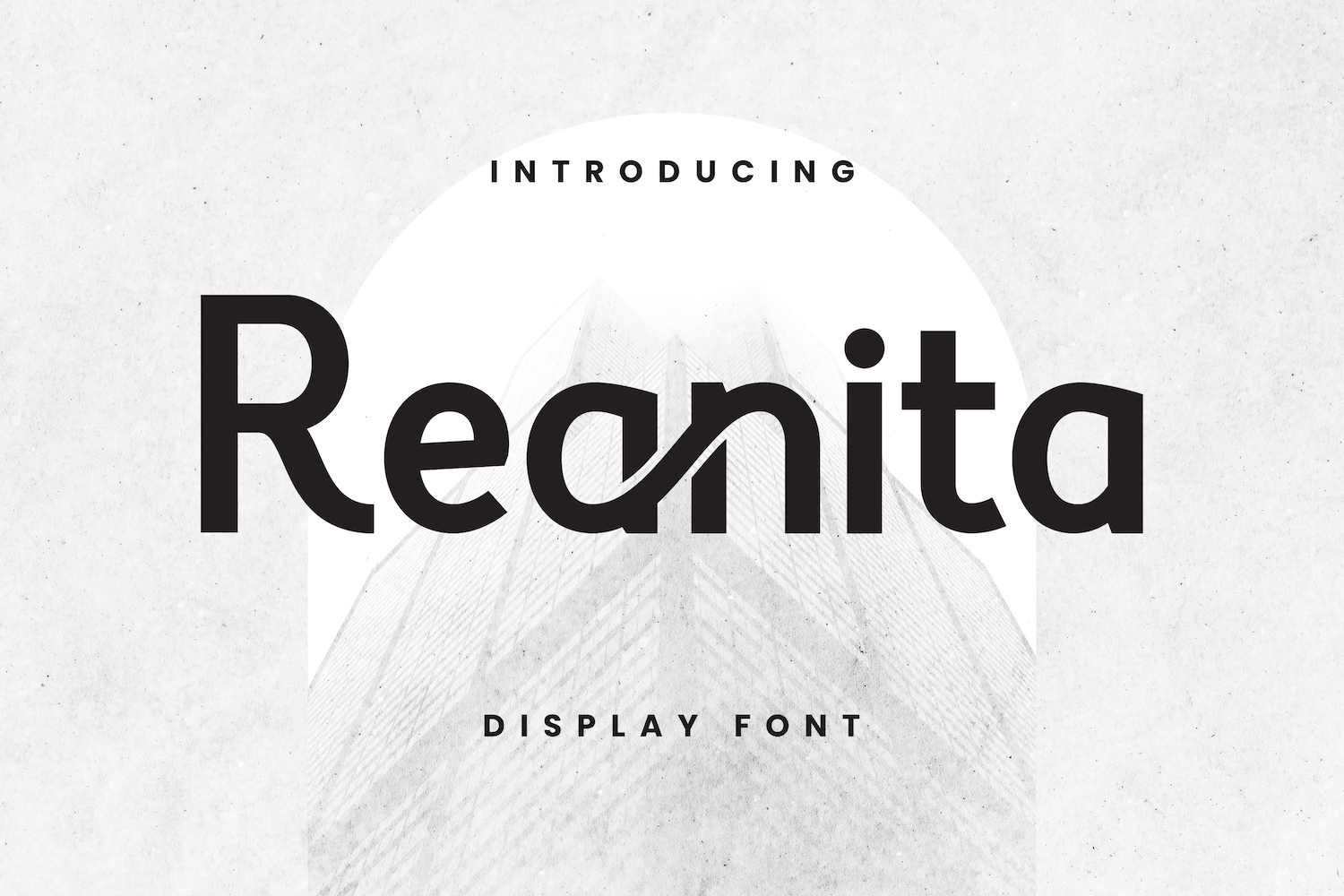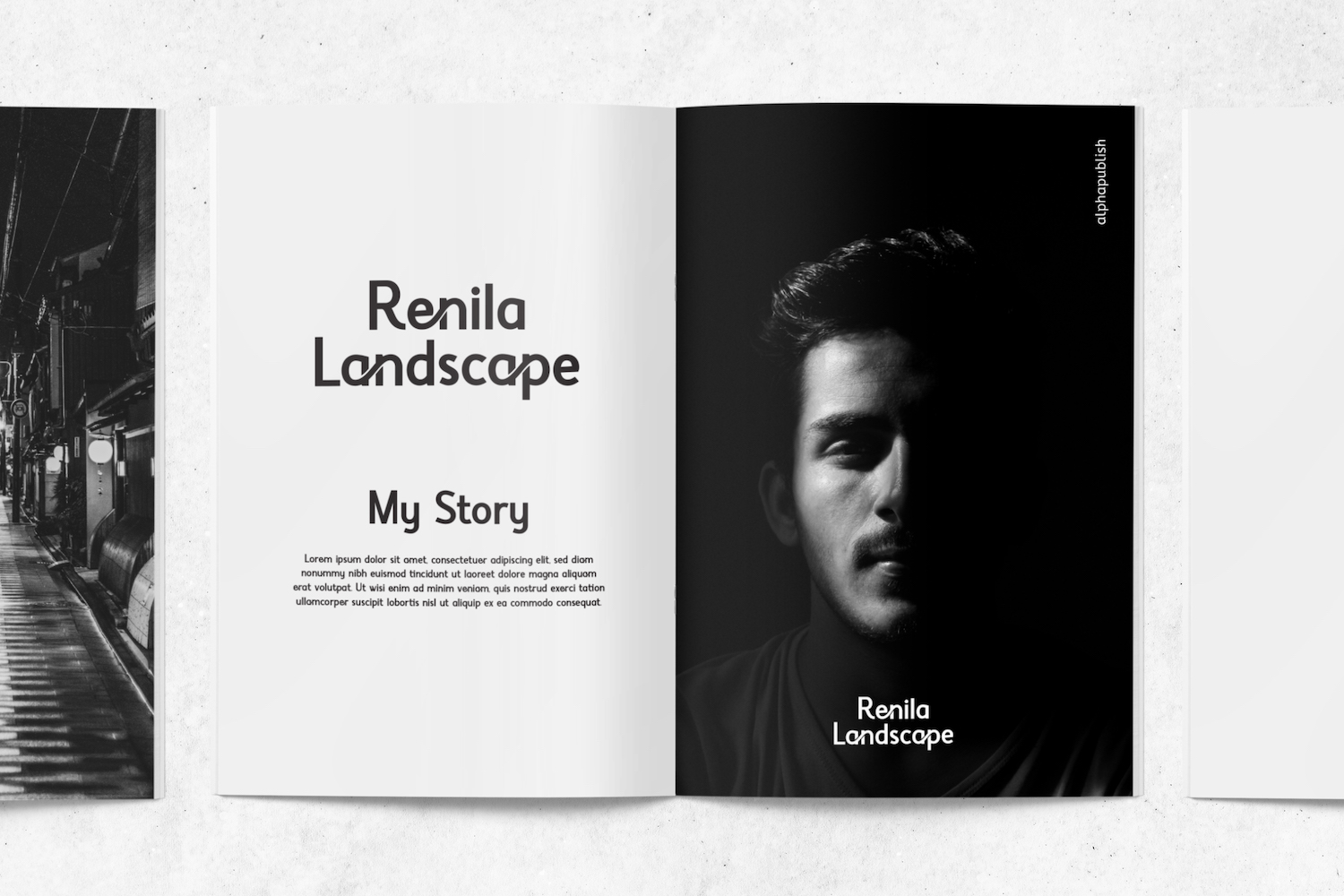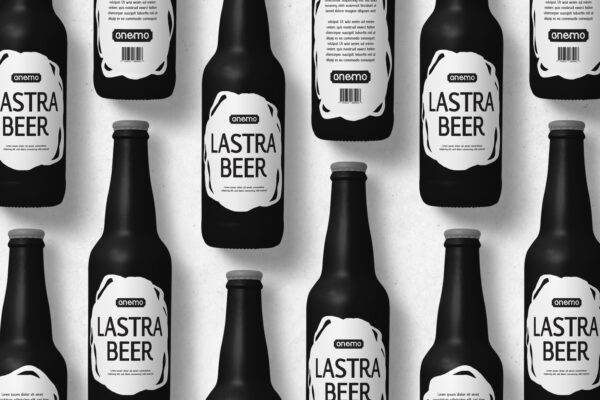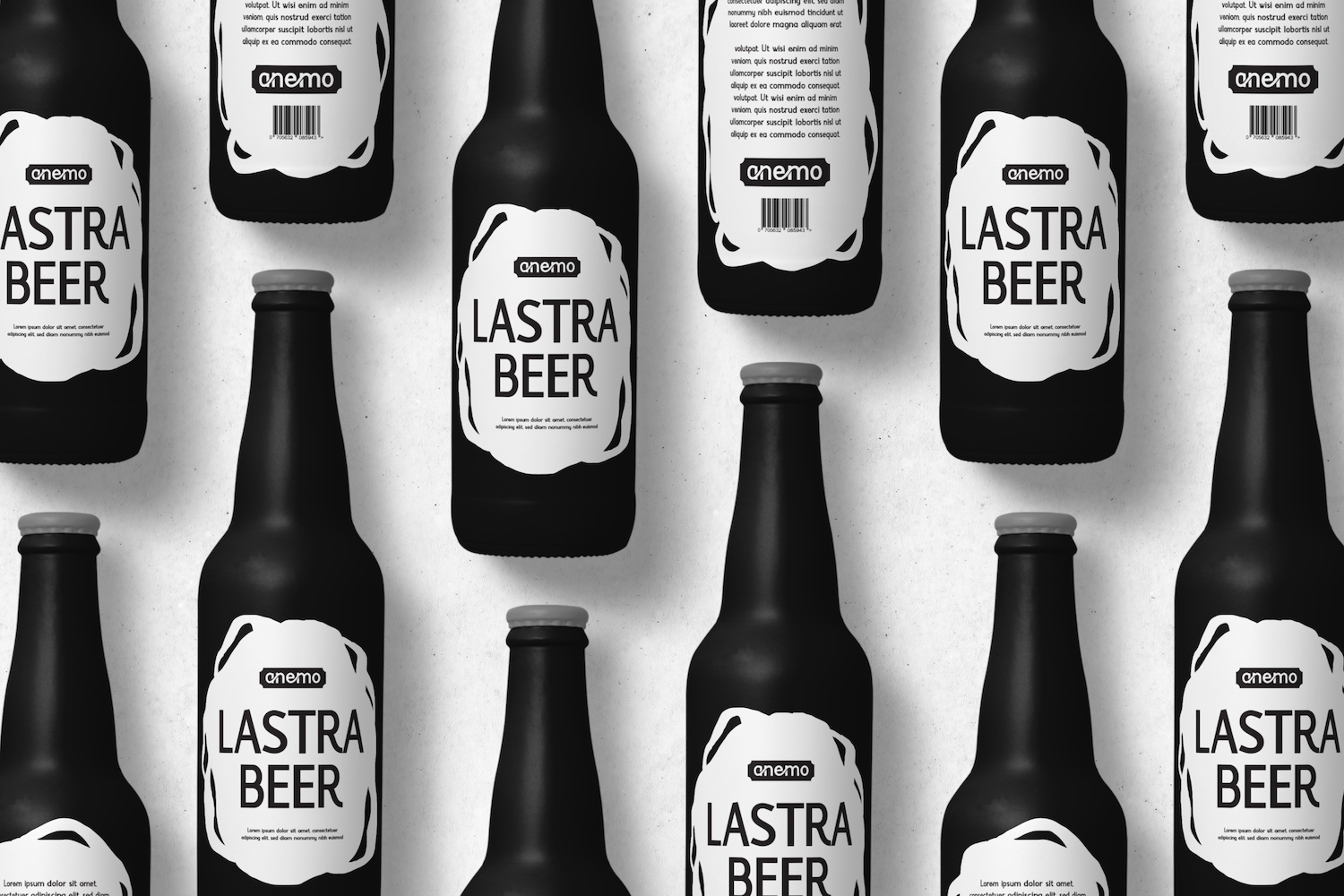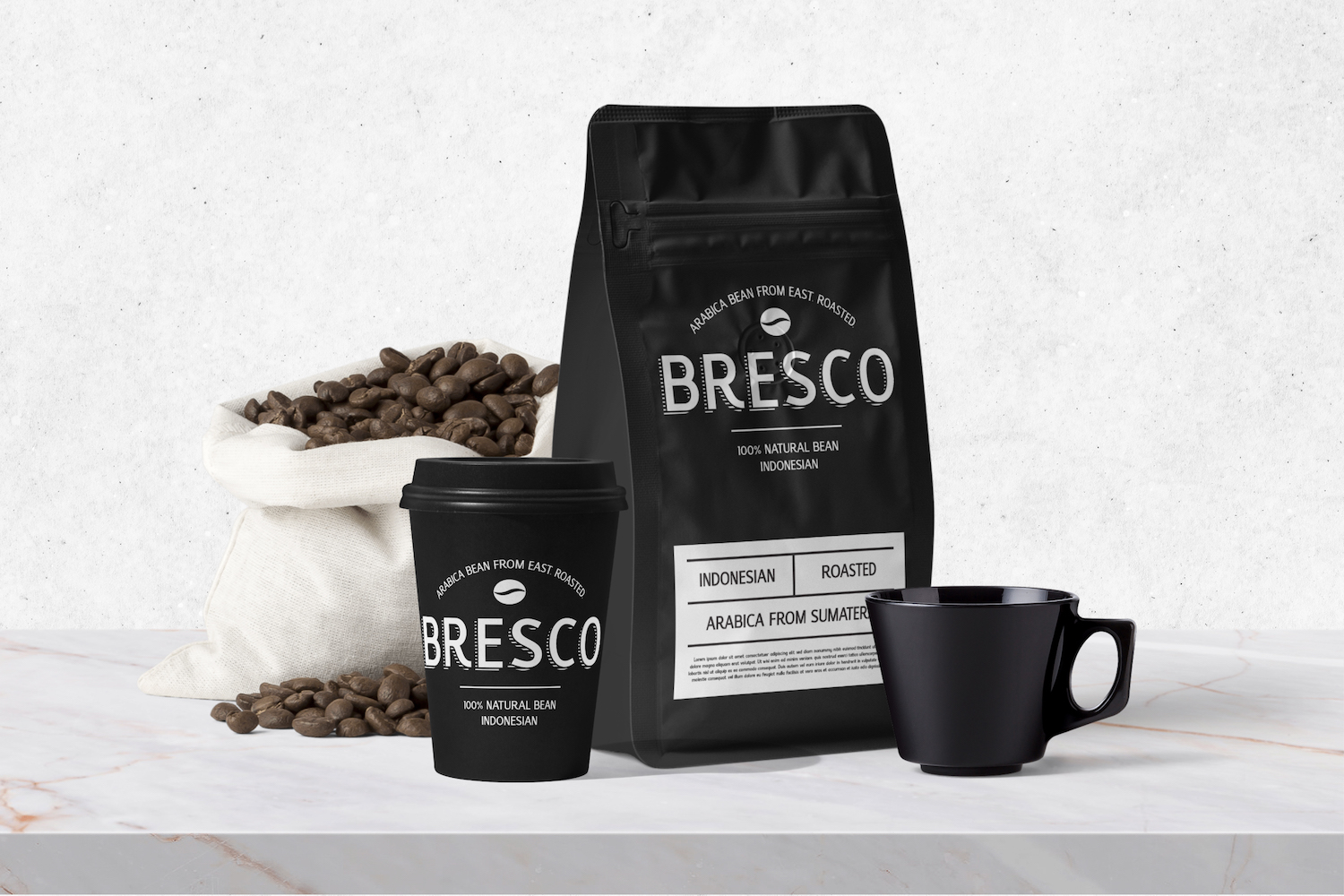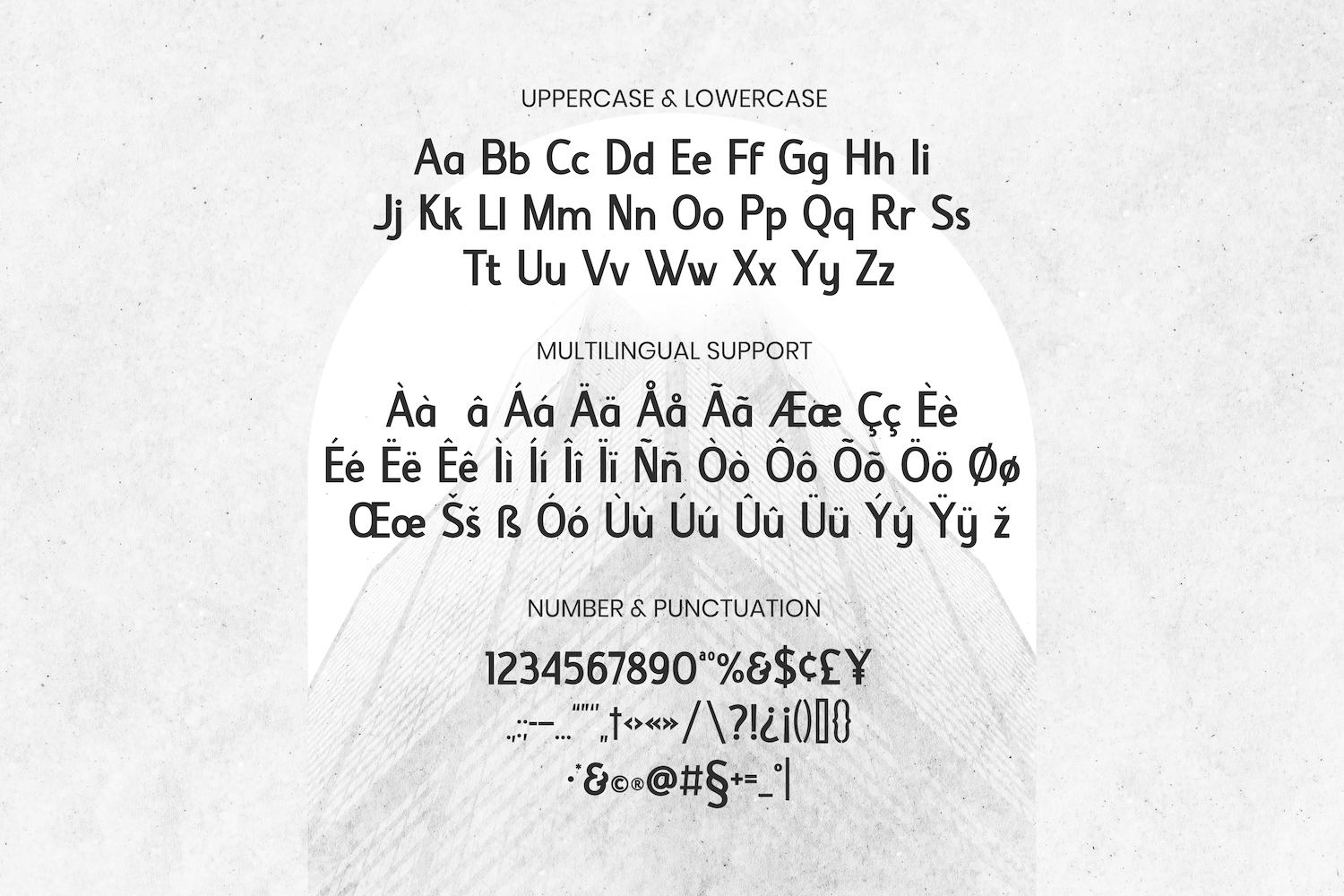
Reanita font is a modern and elegant display typeface that blends geometric precision with a sleek minimalist touch. Its clean lines, smooth curves, and distinctive letter connections give it a stylish and professional character, making it ideal for branding, editorial design, packaging, and contemporary visual identities. Reanita’s unique letterform details create a balance between sophistication and creativity, ensuring every design looks refined and timeless.
With full uppercase and lowercase letters, multilingual support, and complete punctuation, Reanita is versatile across various projects. From corporate logos and product labels to magazines, posters, and digital content, this font elevates designs with clarity, confidence, and a modern edge that appeals to both creative and professional settings.
Reanita